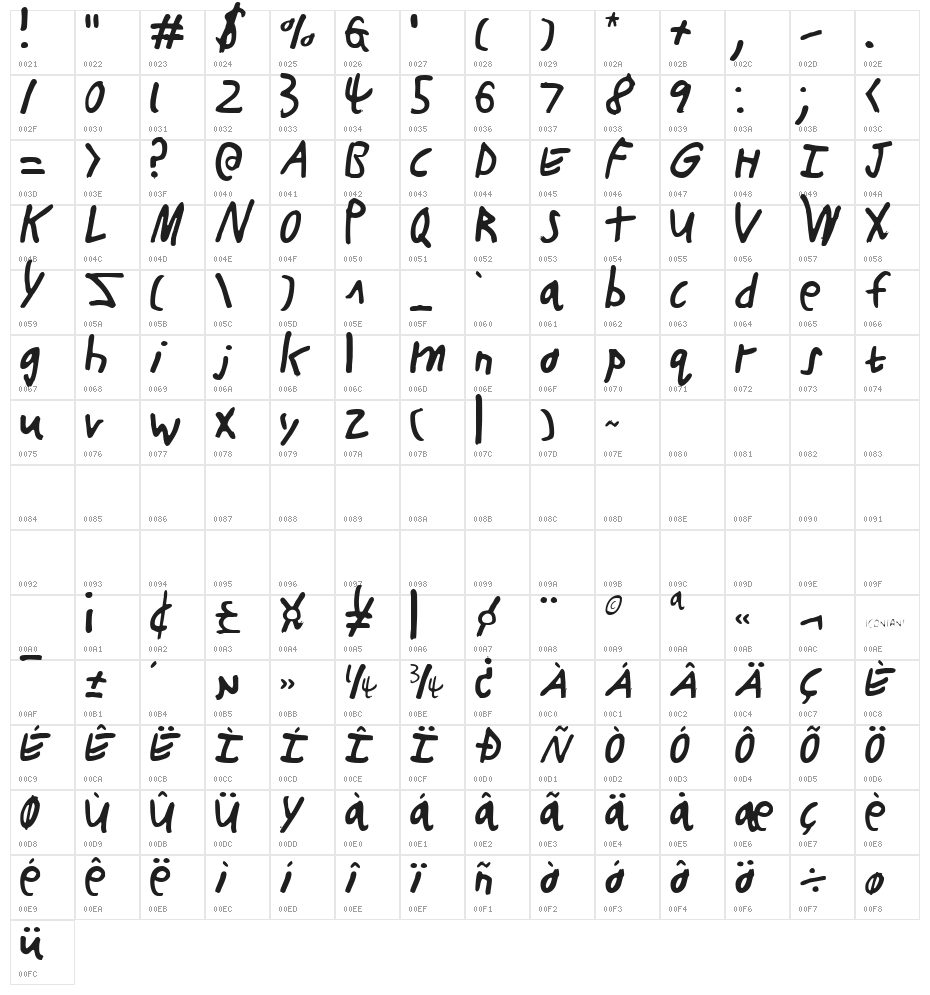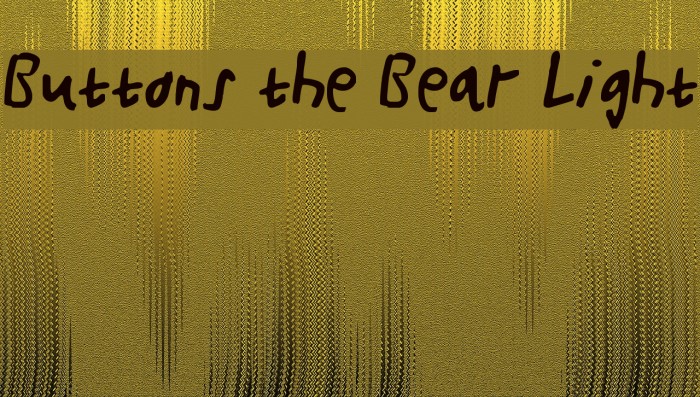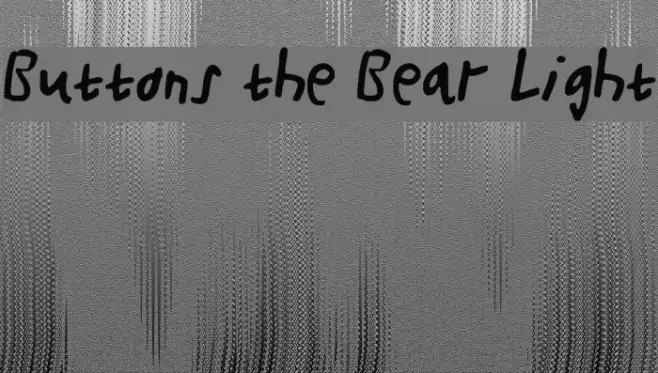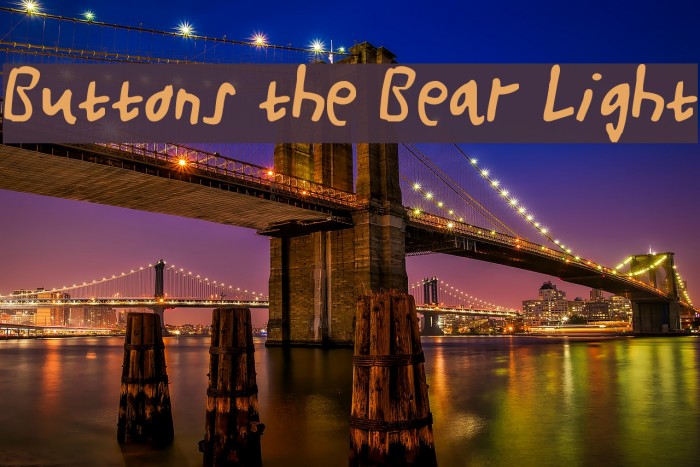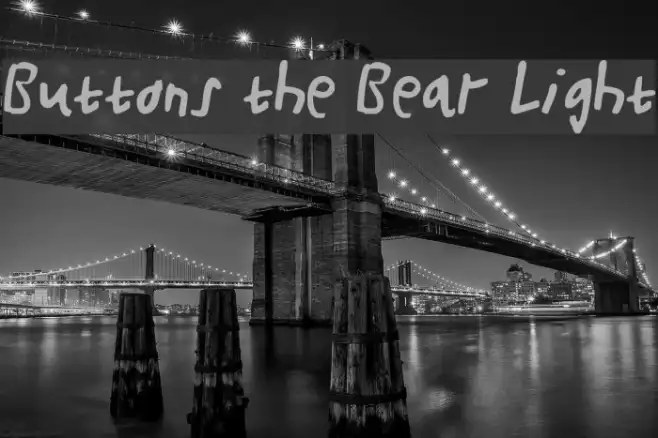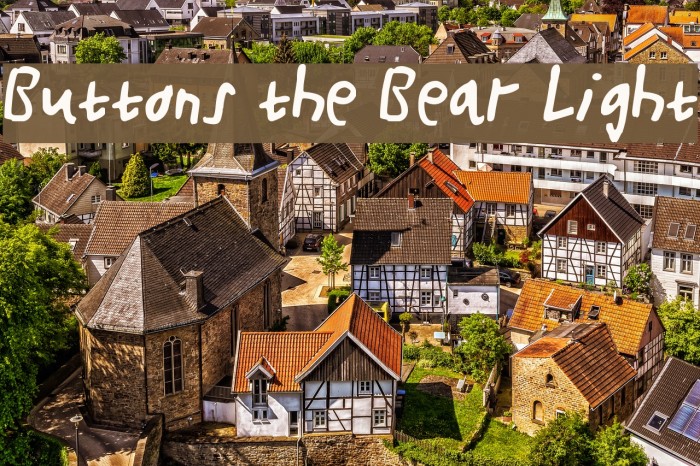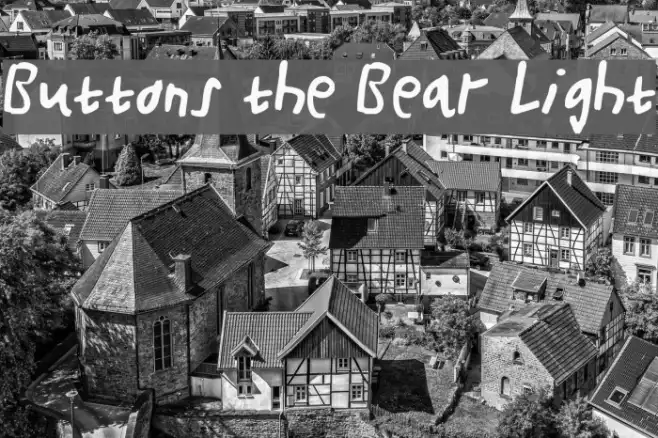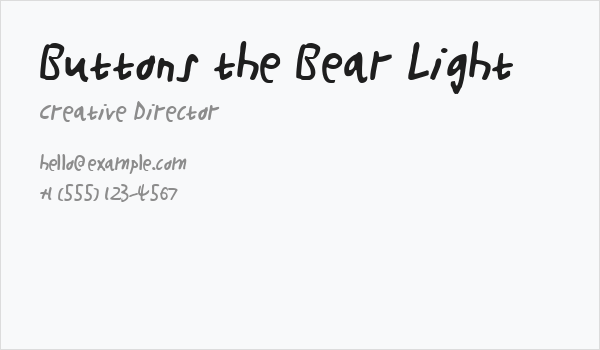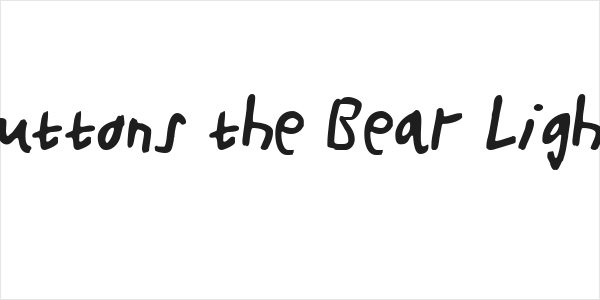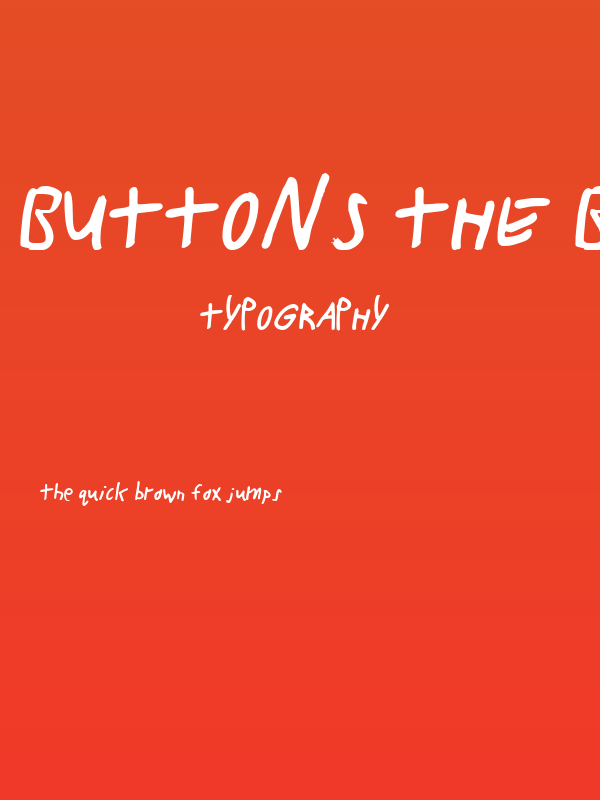
Buttons the Bear Light Font
Buttons the Bear Light Description
This font features a playful and casual handwritten style, characterized by its uneven strokes and organic flow. The letters have a slightly slanted appearance, adding to the informal and friendly vibe. The uppercase and lowercase letters maintain a consistent style, with rounded edges and varying stroke widths that give it a dynamic look. The numerals and special characters are crafted with the same playful touch, making them blend seamlessly with the alphabet. This font is ideal for projects that require a personal and approachable feel, such as children's books, greeting cards, or informal branding.
| Proposed Projects | Ideal for children's books, greeting cards, informal branding, and playful designs. |